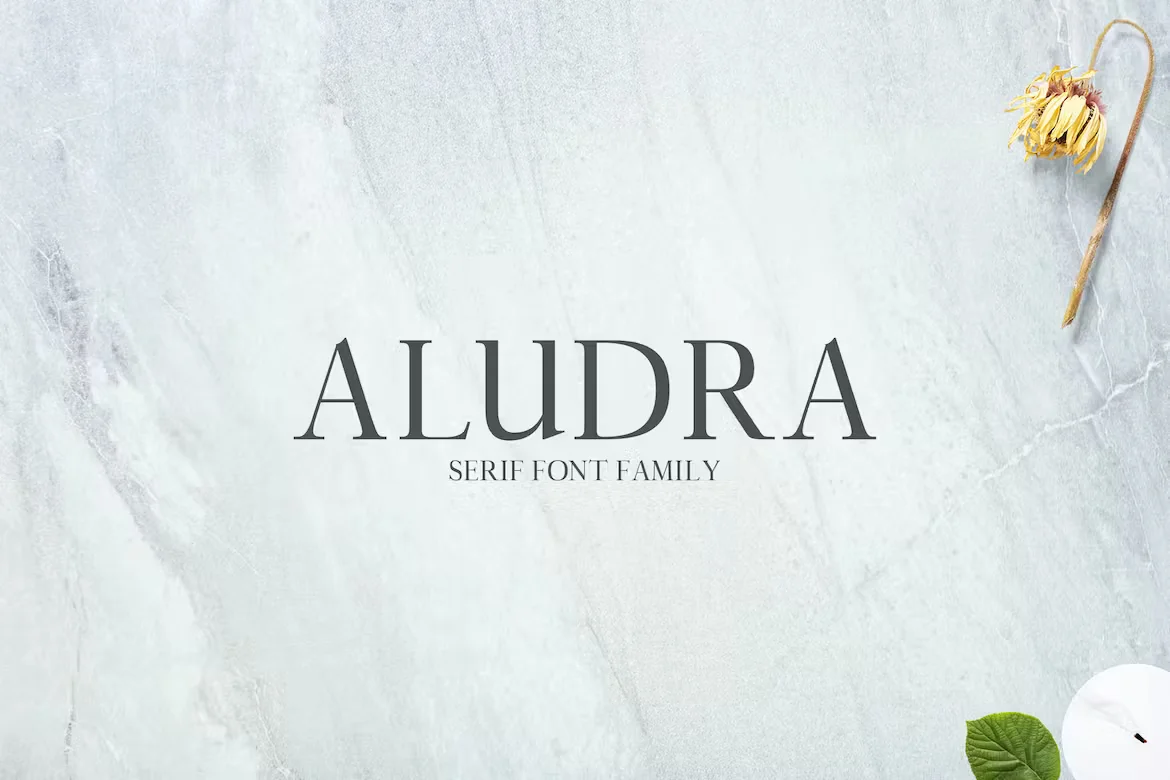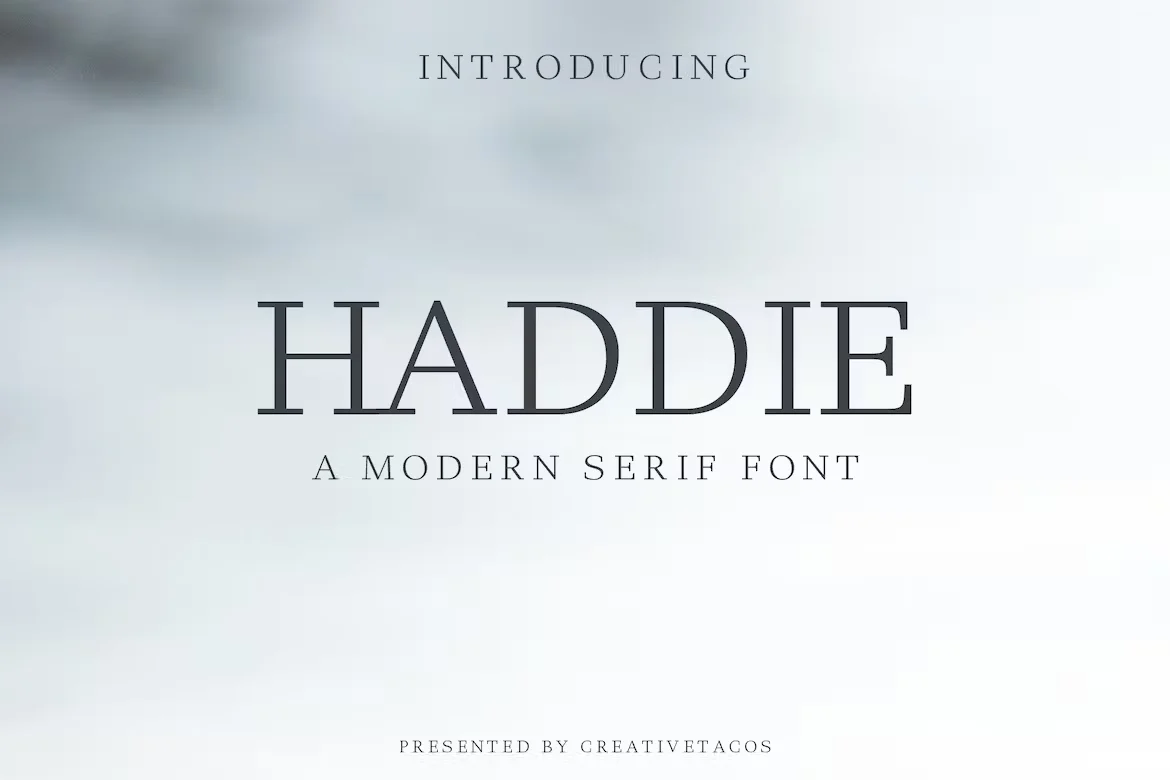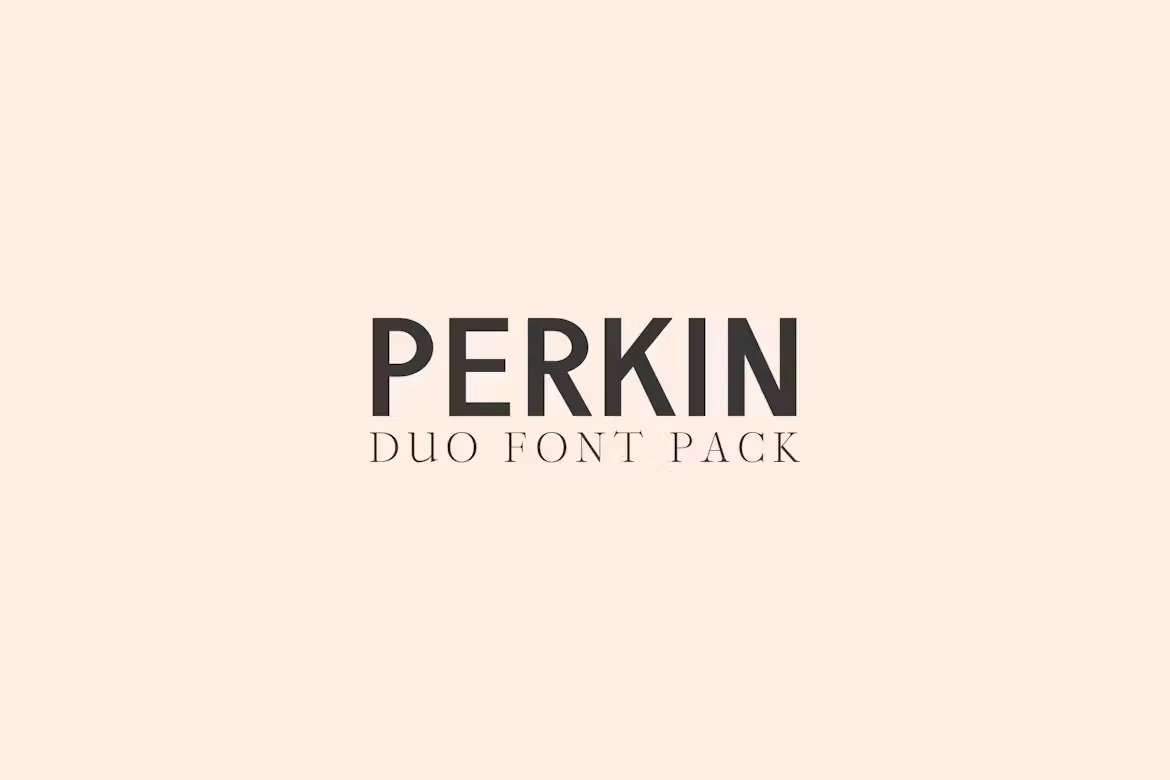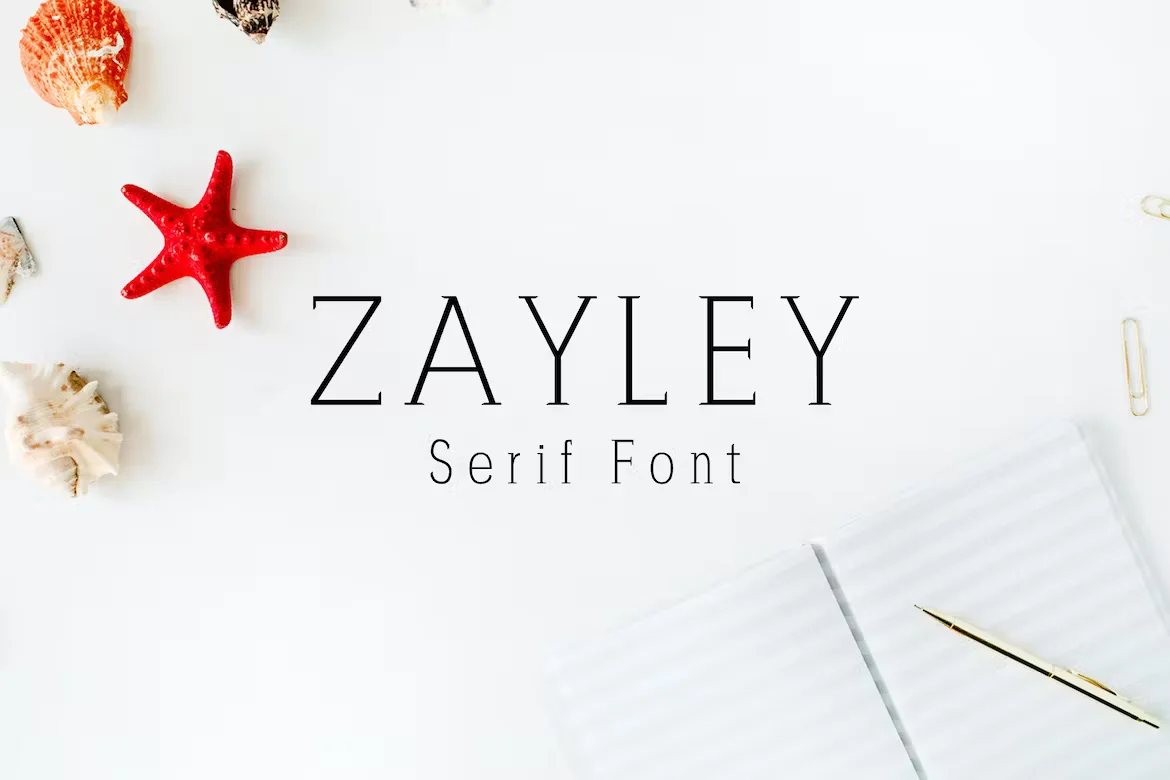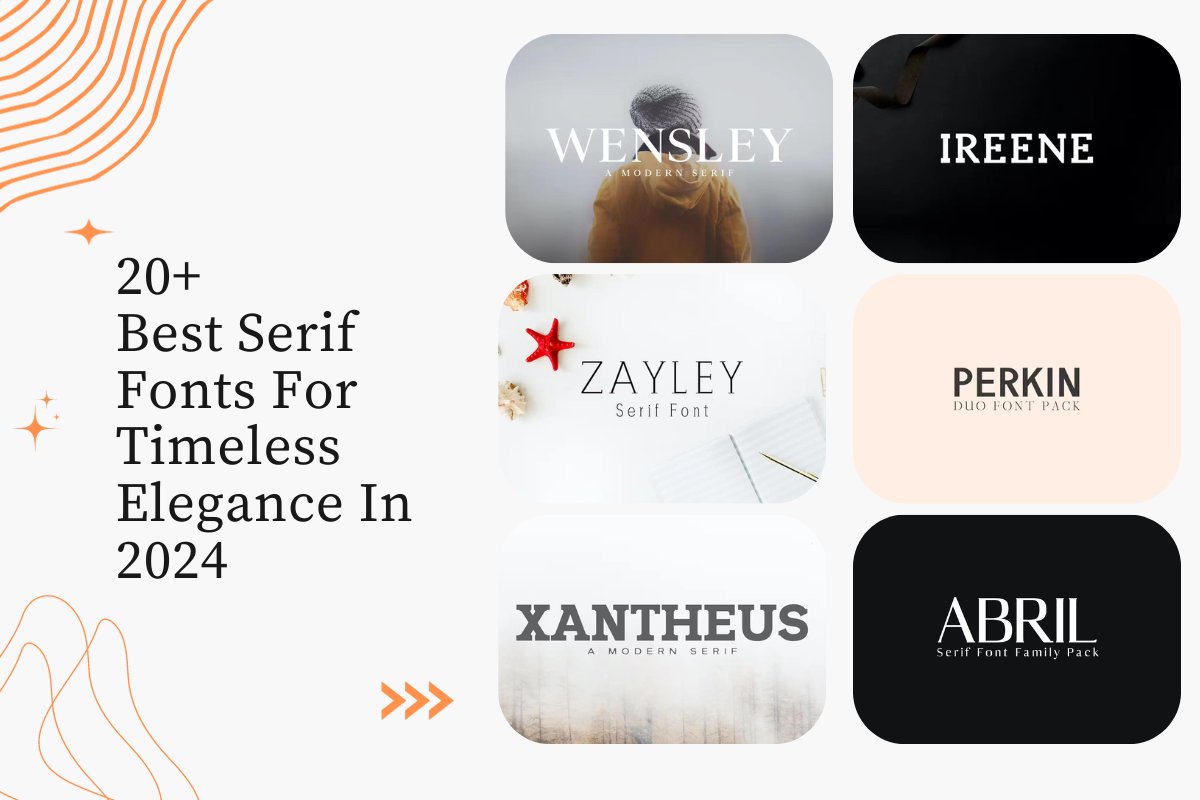
20+ Best Serif Fonts For Timeless Elegance In 2024
Serif fonts are popular for their classic and elegant look. In 2024, these fonts are still loved for how they make text look stylish and professional. Whether you’re working on a fashion brand, a book, or a company logo, the right serif font can really improve your design.
This guide will show you more than 20 best serif fonts for 2024. These fonts are perfect for anyone wanting to feature a smart, timeless feel to their work.
Key Points
• Flexibility of Serif Fonts: Serif fonts work well for many different projects, from printing books to designing logos.
• Mixing Fonts: Combining serif fonts with simpler, sans-serif fonts can make your design more interesting and clear.
• Current Trends: The trend for 2024 includes serifs that look a bit unusual, with special curves or different thicknesses in lines.
Use Cases
• Fashion Brands: Serif fonts can make fashion brands look more upscale and fancy.
• Magazines and Newspapers: These often use serif fonts because they are easy to read and look traditional.
• Business Branding: Companies use serif fonts to appear more trustworthy and serious.
2024’s Must-Have Serif Fonts for Classic Elegance
Next, you’ll see a list of the best serif fonts for 2024. Each font is chosen for its beauty, how easy it is to read, and how it can make any design better.
Aderes Serif Font Family
Abell Serif Font Family
Abril Serif Font Family Pack
Ahijah A Clean Serif Font Family
Aludra Serif Typeface
Axell Serif Font Family
Birtle Serif Font Family
Brycen Serif Premium 7 Font Family
Carra Serif Font Family Pack
Haddie Modern Serif Font
Ireene Serif Font Family Pack
Jadrien Serif and Sans Duo Font
Maaz Serif Fonts Family Pack
Paulose Modern Serif Font Family
Perkin Duo Font + Bonus Logo
Sondra Serif Typeface
Wensley Modern Serif Font Family
Xantheus Serif Font Family
Zahra Serif Font Family
Zayley Serif Font
Zimra Serif Font Family
This roundup covers a range of serif fonts, from those good for any project to those best for making a bold statement. No matter what you’re creating, from redoing a brand to making wedding cards, these fonts can make your work stand out.
Wrapping Up Best Serif Fonts
Choosing the right serif font can improve your design, adding a stylish and classic feel. As 2024 approaches, these 20+ serif fonts are not just trendy but also essential for designers who want to make impressive and lasting visuals. Remember, the best way to use typography is to choose a great font and use it wisely and creatively.